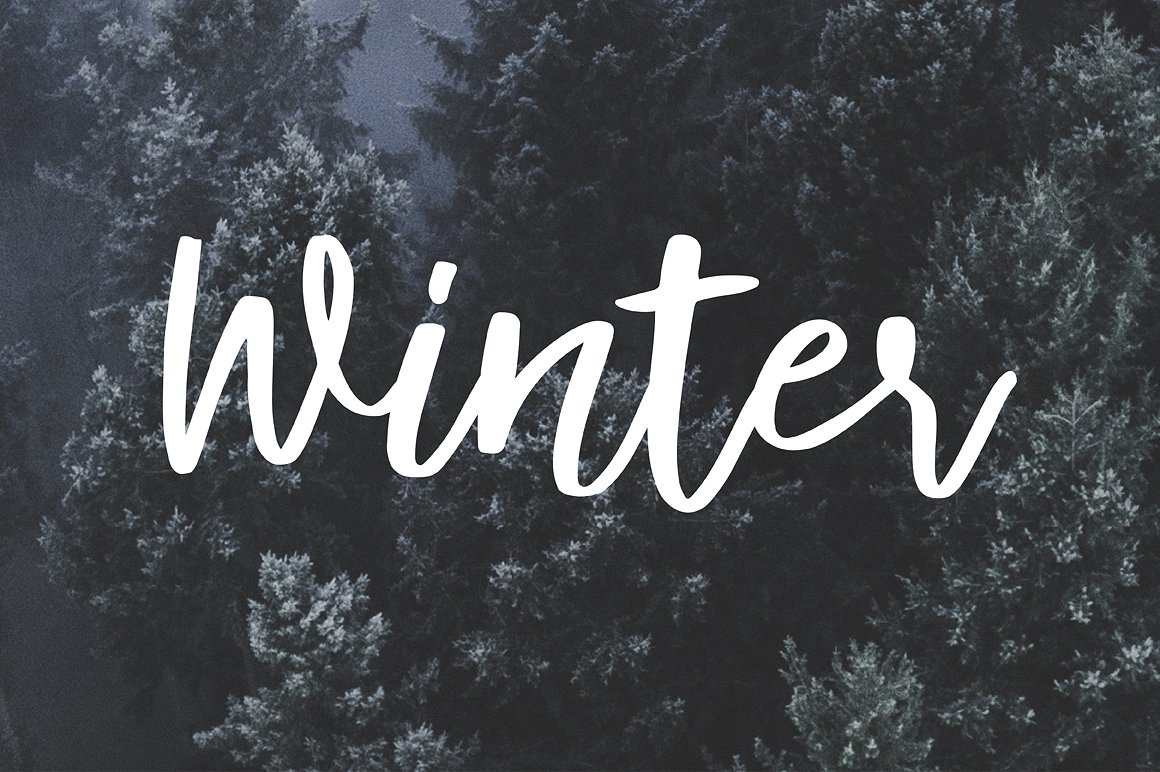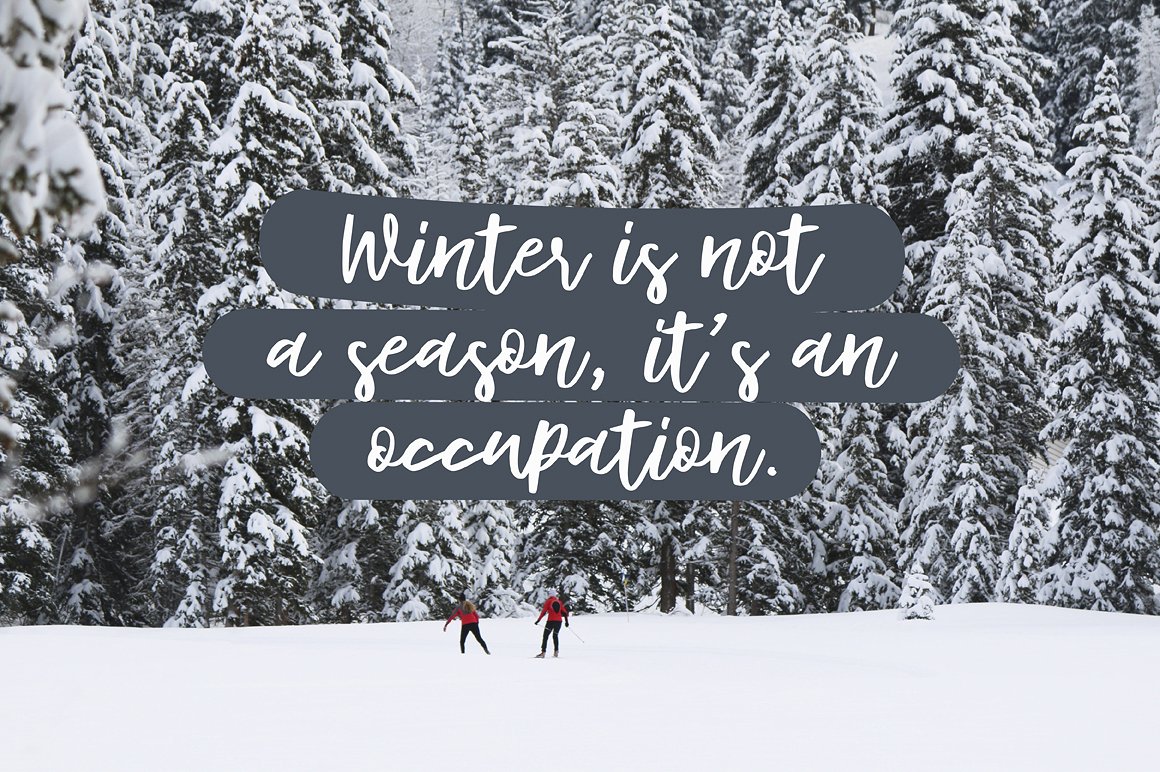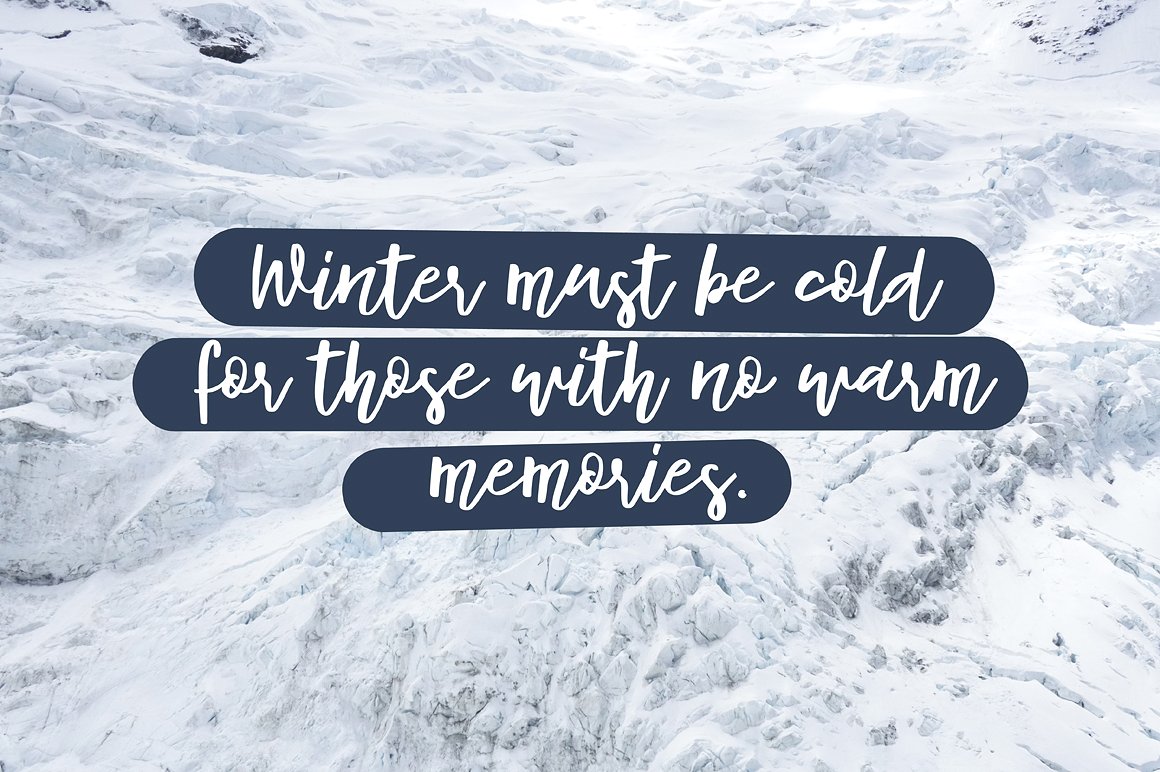
Syberic Script Font
Continued is a design from Mr.Typeman, a famous fonts designer. Introducing Syberic Script Font. Syberic – a handwritten font with a natural flow. It’s a perfect choice for everyday design needs, including your next project! Syberic comes with uppercase, lowercase, standard punctuation, numerals and special letters for most of the European languages.